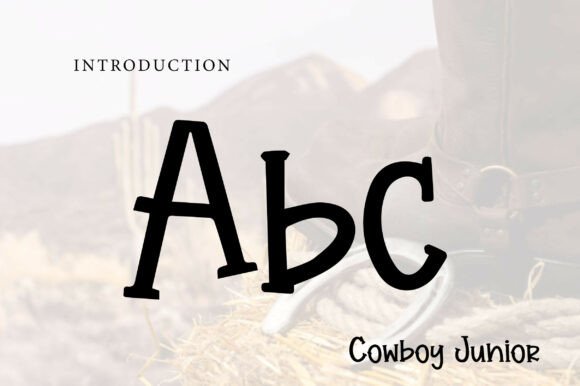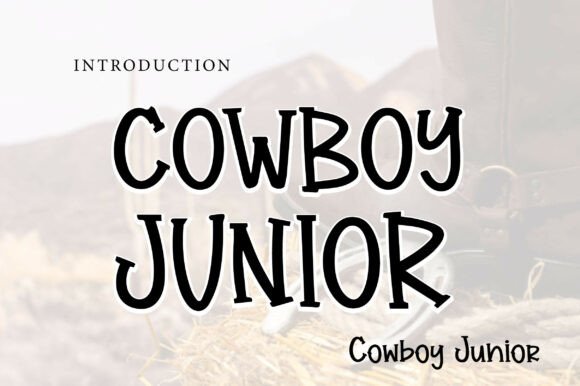
Cowboy Junior Font: Add a Wild West Touch to Your Designs
Are you looking for a font that can bring a fun and playful western vibe to your designs? Look no further than Cowboy Junior Font! This bold, friendly, and adventurous font is inspired by classic cowboy style and is perfect for adding a cheerful rustic charm to your projects.
What is Cowboy Junior Font?
Cowboy Junior is a western display font that exudes a fun and playful personality. Its bold and adventurous letterforms are inspired by the classic cowboy style, making it perfect for designs that require a lively and eye-catching touch. Whether you’re designing for kids, events, or playful branding, Cowboy Junior is the perfect font to add a charming wild west feel to your work.
Characteristics of Cowboy Junior Font
Cowboy Junior Font has several characteristics that make it stand out from other fonts. Some of its key features include:
- Western-inspired letterforms: The font features letterforms that are inspired by classic western typography, giving it a unique and authentic look.
- Playful look: Cowboy Junior has a playful and fun look that makes it perfect for designs that require a lighthearted touch.
- Bold and friendly personality: The font has a bold and friendly personality that makes it perfect for designs that require a adventurous and cheerful vibe.
Use Cases for Cowboy Junior Font
Cowboy Junior Font is perfect for a variety of design projects, including:
- Kids’ designs: The font’s playful and fun look makes it perfect for designs aimed at kids, such as children’s books, nursery decor, and kids’ party themes.
- Birthday themes: Cowboy Junior is perfect for creating birthday party decorations, invitations, and other materials that require a fun and playful touch.
- Party decorations: The font’s western-inspired look makes it perfect for creating party decorations, such as banners, signs, and other materials.
- Posters: Cowboy Junior is perfect for creating eye-catching posters that require a bold and adventurous font.
- Branding and packaging: The font’s playful and friendly personality makes it perfect for branding and packaging designs that require a fun and adventurous vibe.
- Stickers and t-shirt designs: Cowboy Junior is perfect for creating stickers and t-shirt designs that require a bold and playful font.
- Creative projects: The font’s unique and authentic look makes it perfect for creative projects that require a western-inspired touch.
Why Choose Cowboy Junior Font?
There are several reasons why you should choose Cowboy Junior Font for your design projects. Some of the benefits of using this font include:
- Unique and authentic look: The font’s western-inspired letterforms give it a unique and authentic look that sets it apart from other fonts.
- Playful and fun personality: Cowboy Junior has a playful and fun personality that makes it perfect for designs that require a lighthearted touch.
- Versatility: The font is perfect for a variety of design projects, from kids’ designs to branding and packaging.
Cowboy Junior Font is a fun and playful western display font that is perfect for adding a cheerful rustic charm to your designs. With its western-inspired letterforms and playful look, it’s perfect for kids’ designs, birthday themes, party decorations, posters, branding, packaging, stickers, t-shirt designs, and creative projects that need a fun cowboy touch. Whether you’re a designer or crafter, Cowboy Junior is a great choice for any project that requires a bold, friendly, and adventurous font.